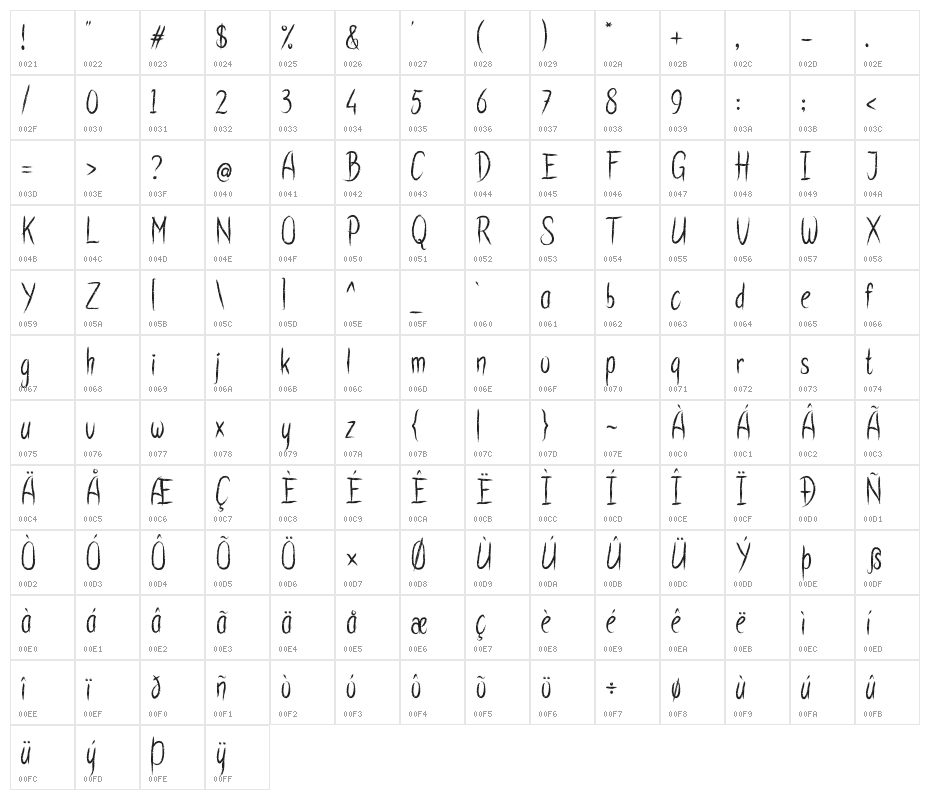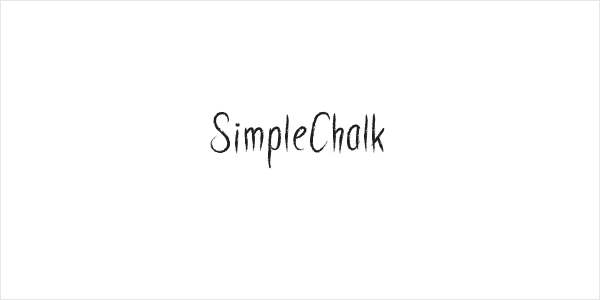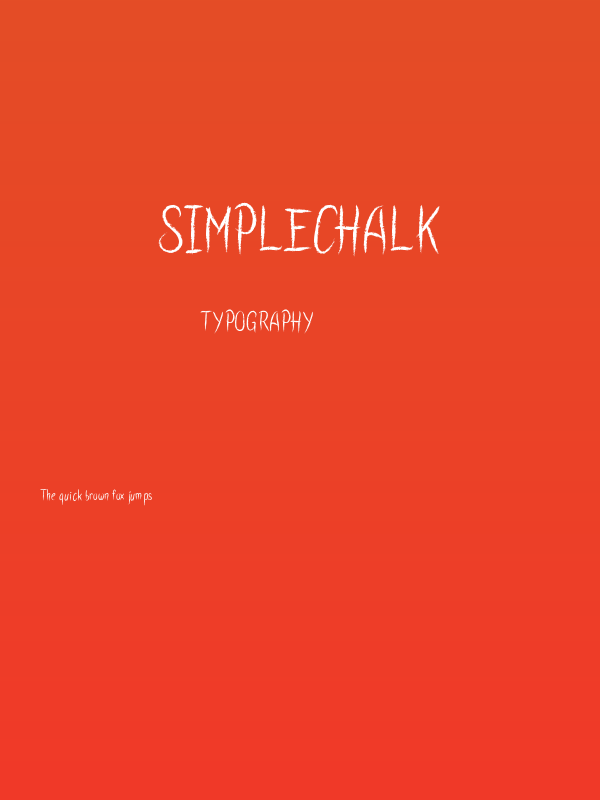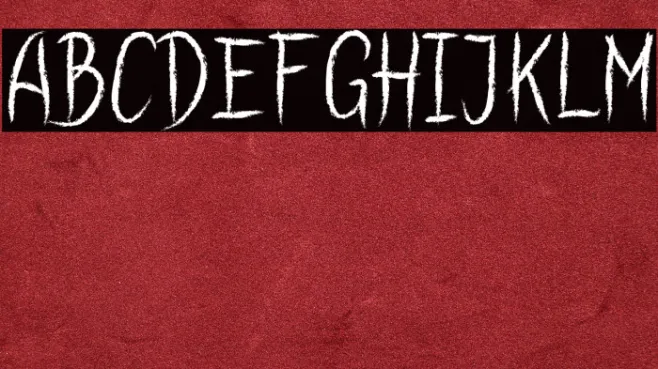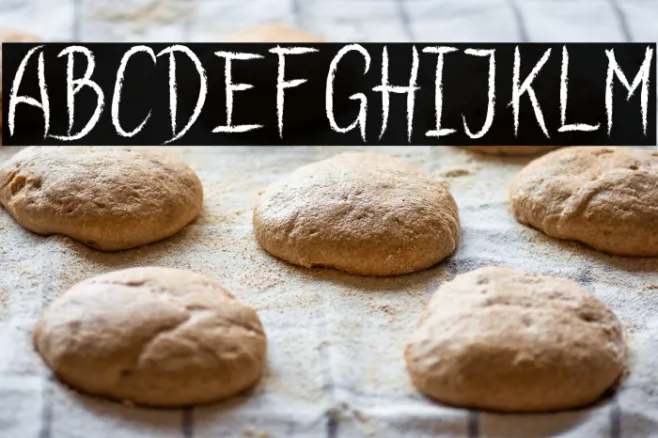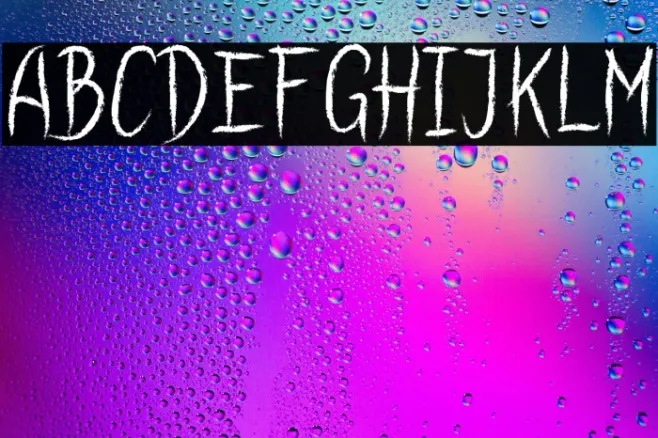
SimpleChalk Font
SimpleChalk Description
This font features a hand-drawn, chalk-like appearance, reminiscent of writing on a chalkboard. The characters are slightly irregular, adding a playful and informal touch. The strokes are uneven, with a textured look that mimics the effect of chalk dust. The uppercase letters are bold and prominent, while the lowercase letters maintain a consistent style, offering a cohesive look. The numbers and special characters follow the same design, ensuring uniformity across all elements. This font is ideal for projects that require a casual, artistic feel.
| Overall Style | Casual, Artistic |
| Use Case | Headlines, Informal Text, Artistic Projects |
| Proposed Projects | Perfect for educational materials, children's books, cafe menus, or any project needing a casual, artistic touch. |